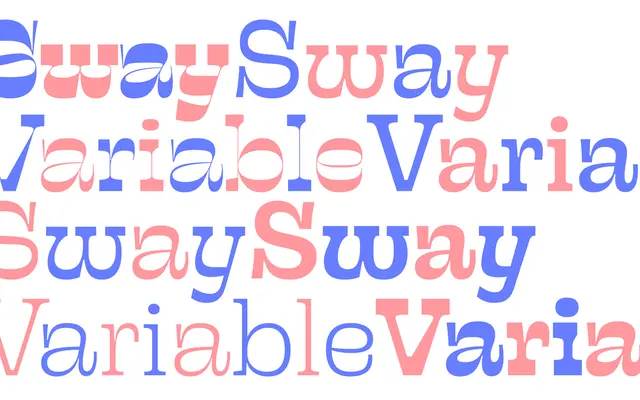
A double-axis variable serif that shifts between horizontal and vertical stress to produce three distinct sub-families ranging from conventional contrast to fully inverted.
A variable serif built on two axes, contrast and weight, that lets users move between horizontal and vertical stress to produce markedly different typographic characters. The three static sub-families, Sway, Sway Mid and Sway Inverse, each span six weights from Light to Black with matching italics, offering a spectrum from conventional high-contrast to fully reversed stress. Oldstyle figures and stylistic alternates are available across the family, and the variable version accommodates granular tuning between those predefined extremes.
Sway is a high-contrast serif with a double axis variable font spanning horizontal to vertical stress, giving it a distinctly expressive and rhythmic character that shifts between conventional and inverted contrast extremes.